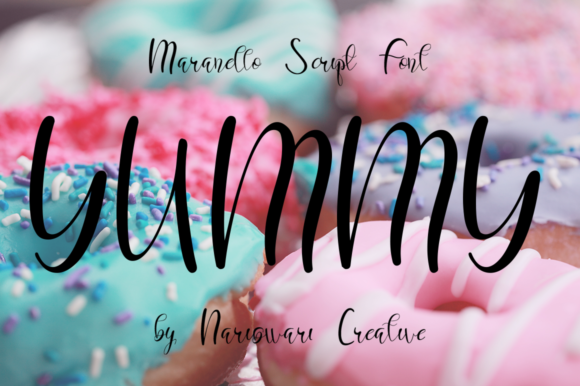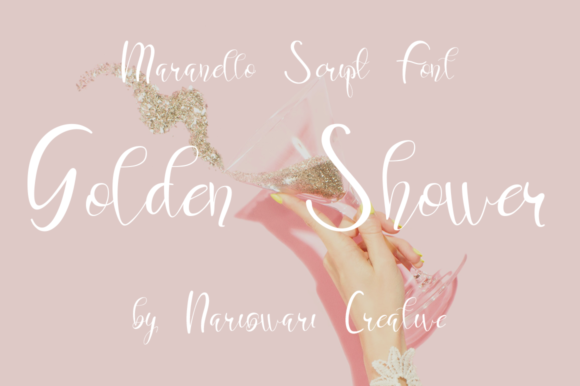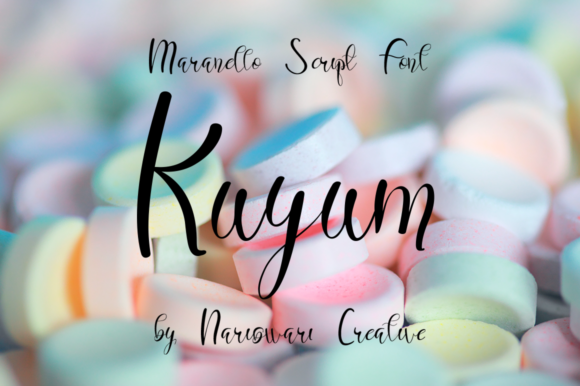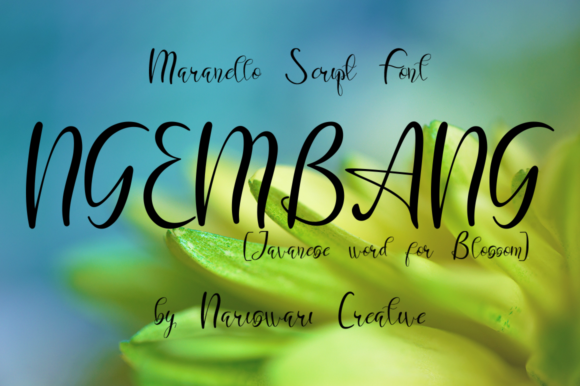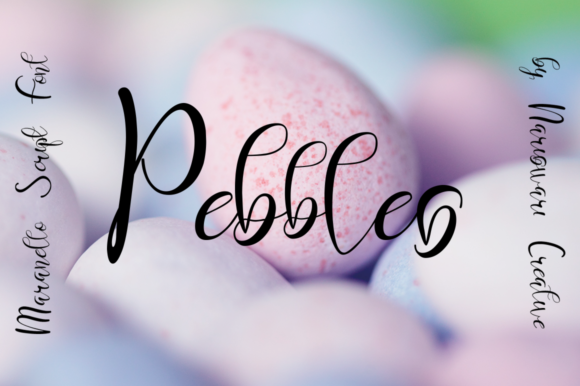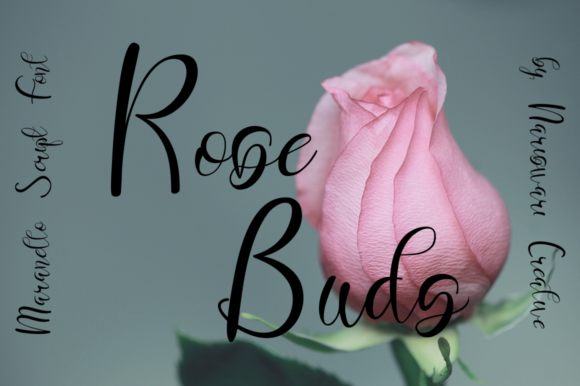
Introduction to Maranello Font
As I sat in front of my computer, staring at a blank screen, I was struggling to find the perfect font for my creative project. I wanted something that would make my design stand out, something that would transport my audience to a world of elegance and sophistication. And then, I stumbled upon it – the Maranello Font.
With its unique, handwritten style and smooth lines, the Maranello Font is a game-changer for designers. Its PUA encoding makes it easy to access all the glyphs and swashes, allowing for endless creative possibilities. Whether you’re working on a high-quality design project or need a reliable design resource, the Maranello Font is a valuable addition to your toolkit.
But what truly sets the Maranello Font apart is its stunning beauty. Its gorgeous glyphs and stunning alternates make it perfect for designs that require a touch of sophistication and style. And the best part? It’s available for free download, making it an accessible design resource for designers of all levels.
Key Features of Maranello Font
- Unique, high-quality design suitable for creative projects, including logos, branding, and advertisements.
- Comes in a single weight, making it easy to use and customize for different design purposes.
- Perfect for designers looking for a modern, stylish font to elevate their creative project.
Honest Review: Maranello Font
I recently had the chance to work with the Maranello Font in a creative project, and I was pleasantly surprised by its high quality. This font is perfect for designers looking for a unique and stylish addition to their design resource collection.
- ✨ High quality design: Maranello Font is a beautifully crafted font that adds a touch of sophistication to any design project.
- ⚠️ Limited font styles: The Maranello Font only comes in a few styles, which may limit its versatility in certain design projects.
- ⚠️ Not suitable for small text: Due to its unique design, the font may not be the best choice for small text or body copy.
Overall, I was impressed with the Maranello Font’s high quality and unique design. While it may have some limitations, it’s an excellent addition to any design resource collection. I would definitely recommend it to designers looking for a stylish and creative solution.
Tips for Getting the Most Out of Maranello Font
To get the most out of the Maranello Font, use it with a transparent background to create a modern and sleek look. You can also experiment with different font sizes and styles to add visual interest to your design.
The Maranello Font is perfect for a variety of creative projects, including:
Brochures and flyers
Business cards and letterheads
Presentations and reports
Web design and development
Alternatives to Maranello Font
Montserrat is a popular sans-serif font ideal for creative projects, especially those requiring a high-quality, modern look. It’s available for free download and features a transparent background, making it perfect for designs with complex layouts. Use Montserrat when you need a clean and sophisticated font for your design project. Compared to Maranello Font, Montserrat has a more geometric and industrial feel.
Is the Maranello Font suitable for print or digital designs?
The Maranello Font is a high-quality font that can be used for both print and digital designs. Its clear and legible characters make it perfect for body text, headings, and titles in various creative projects. You can use it in brochures, magazines, websites, social media, and other design materials.